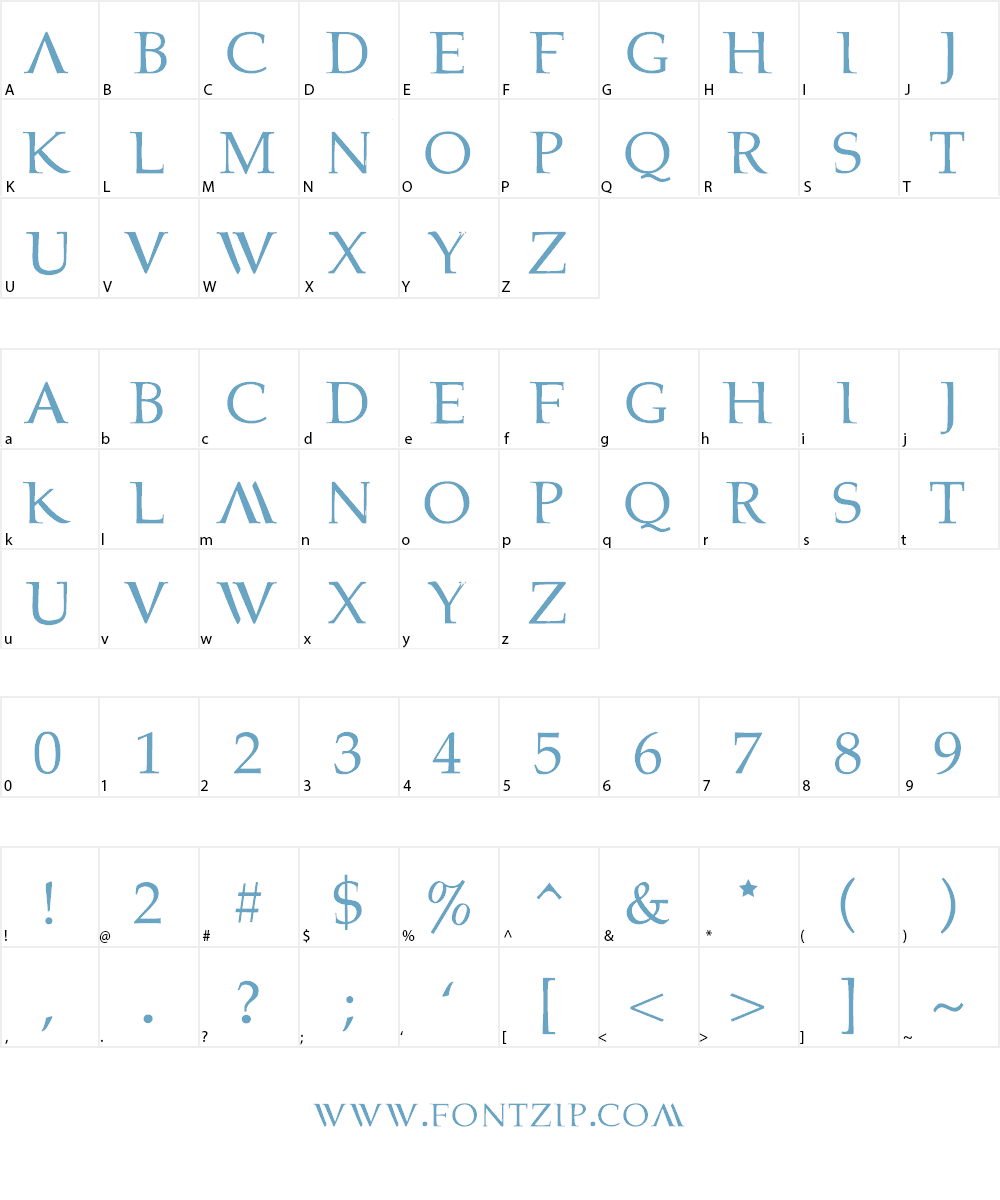
This one was also made to resemble the “ARROW” logo, but, unlike the original bow&arrow font, decorative elements were reduced to a minimum so that it is more “usable”. Have fun with it, and any feedback is more than welcome. :)